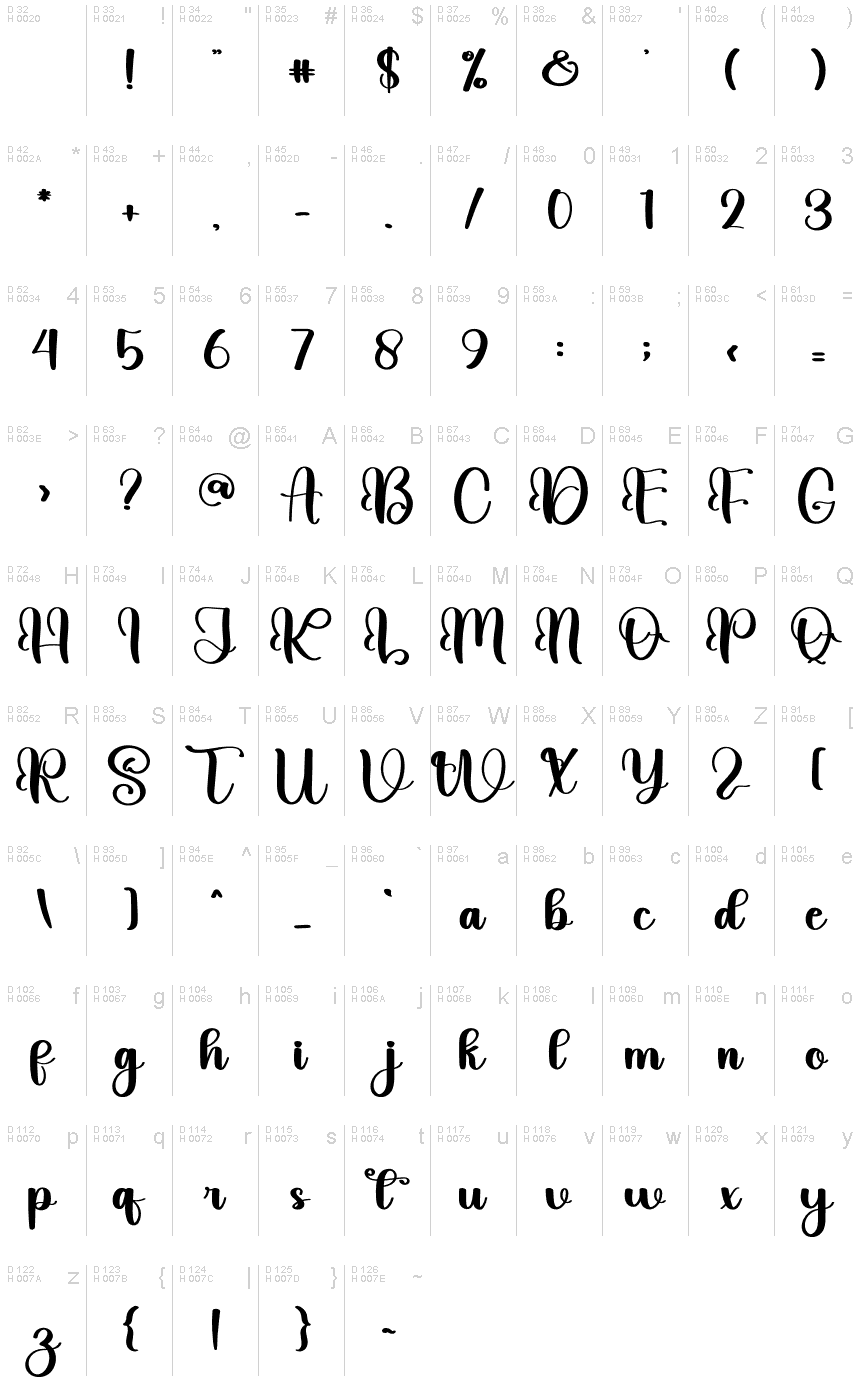
Winter Beach
Winter Beach emerges as a captivating semi-bold calligraphy typeface, meticulously crafted by Inermedia Studio. This font's fluidity and elegance evoke the serenity of a beach combined with the crispness of winter, making it an exceptional choice for designs that require a touch of sophistication and personality.
The Winter Beach font exudes aesthetic charm with its sweeping curves and fine lines, providing a harmonious balance that is visually pleasing and versatile. Its semi-bold weight ensures legibility while maintaining an airy grace, perfect for invitations, branding materials, and artistic projects where a human touch is desired.
The calligraphic style of Winter Beach brings forth an artisanal quality that can elevate various creative endeavors. Whether used for editorial headlines, boutique packaging, or personalized stationery, this font stands out with its unique blend of contemporary flair and timeless elegance.